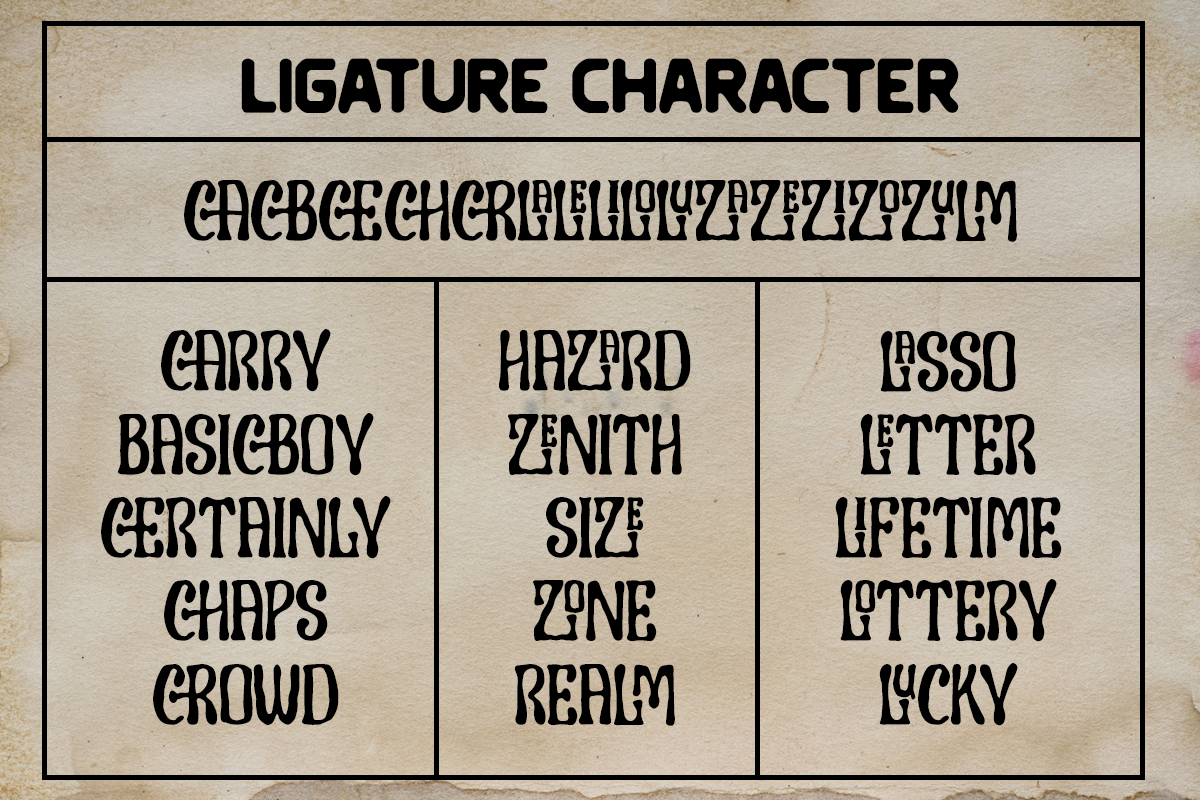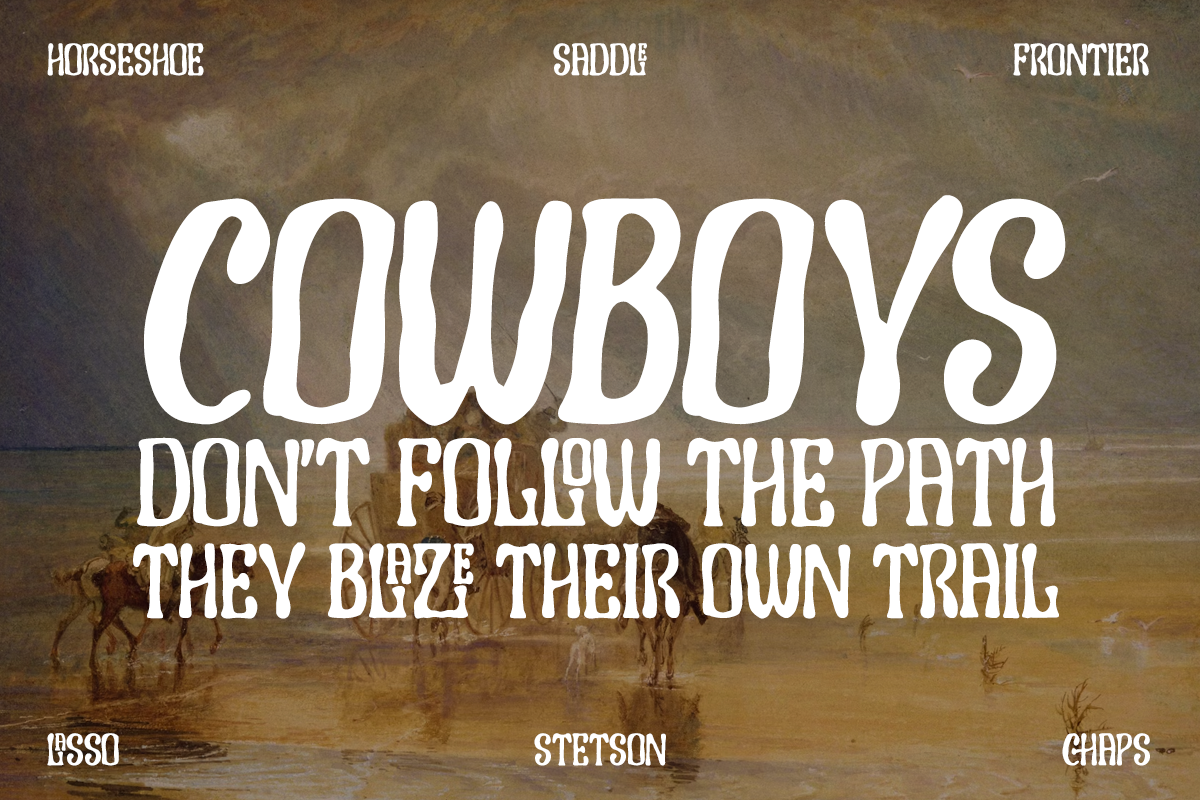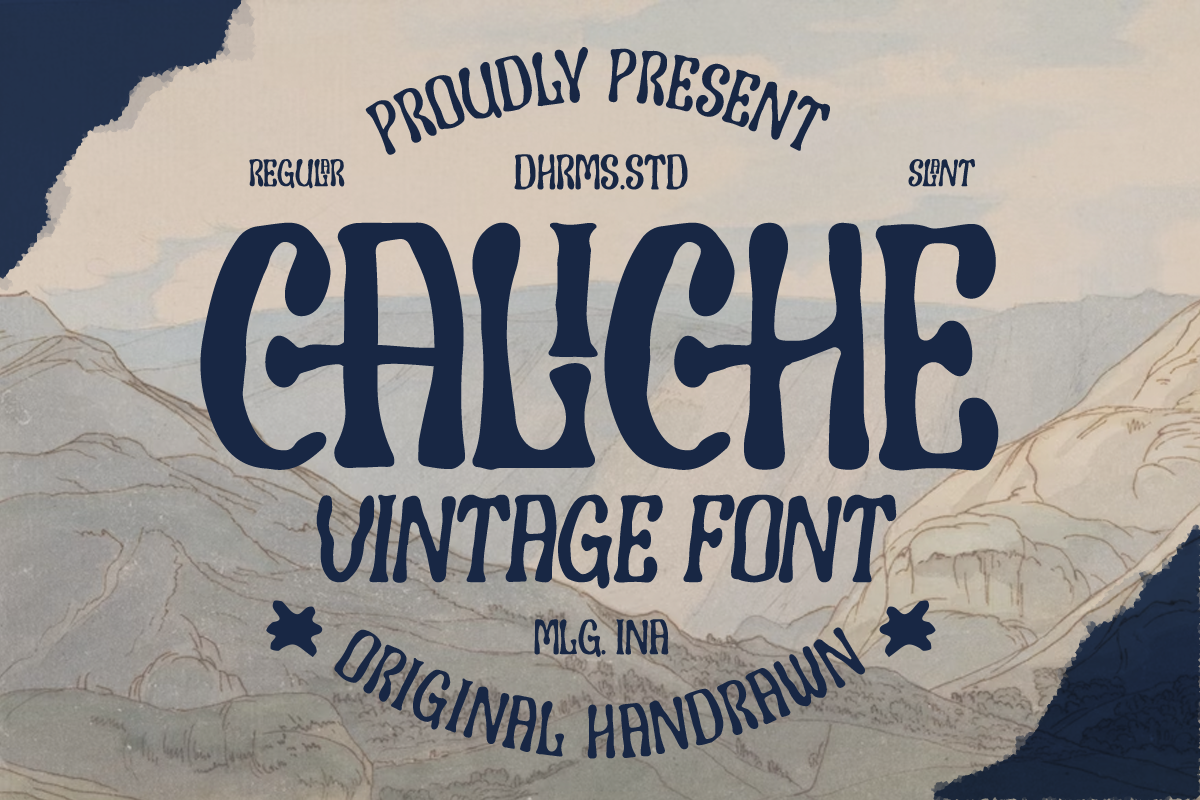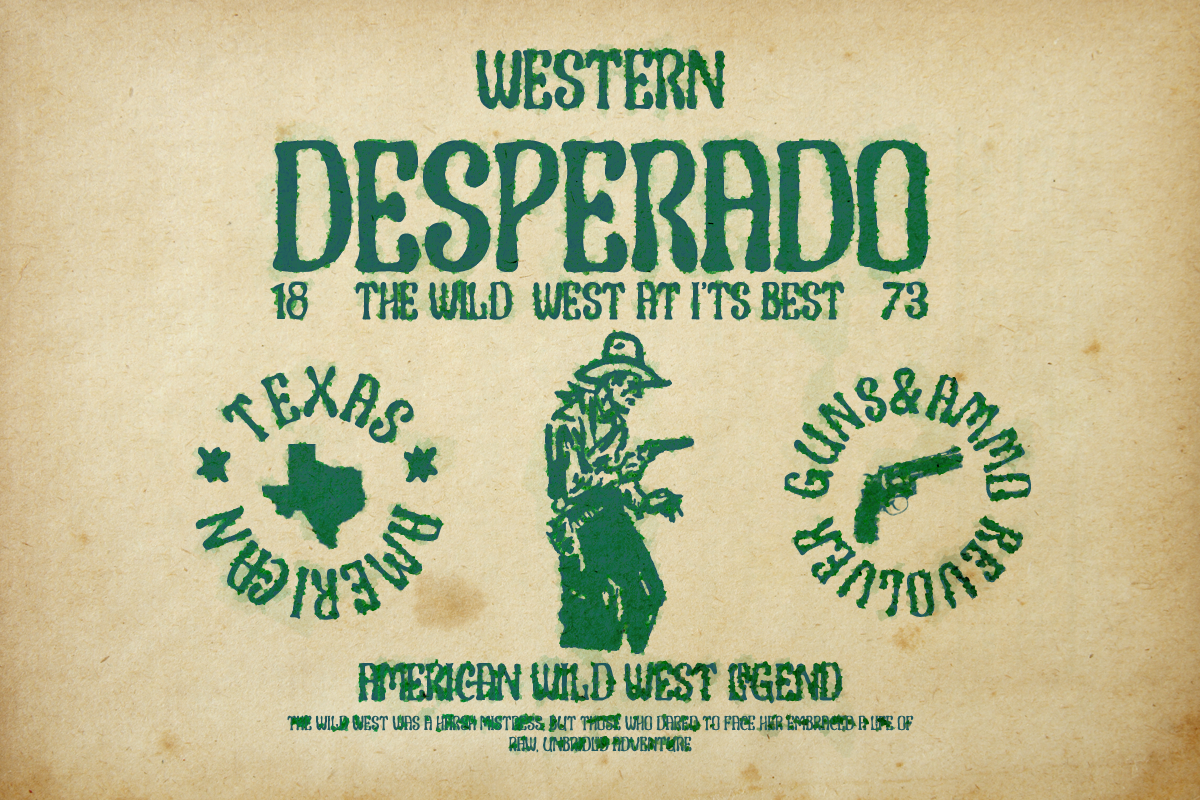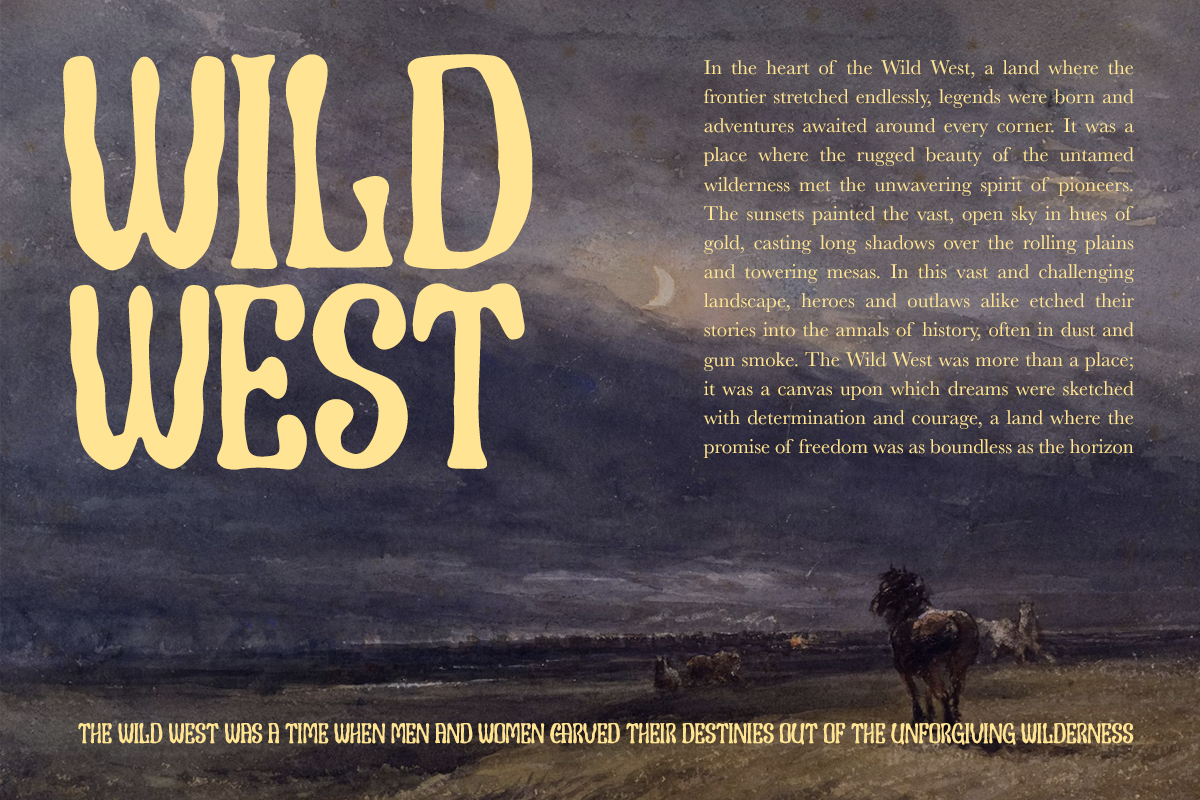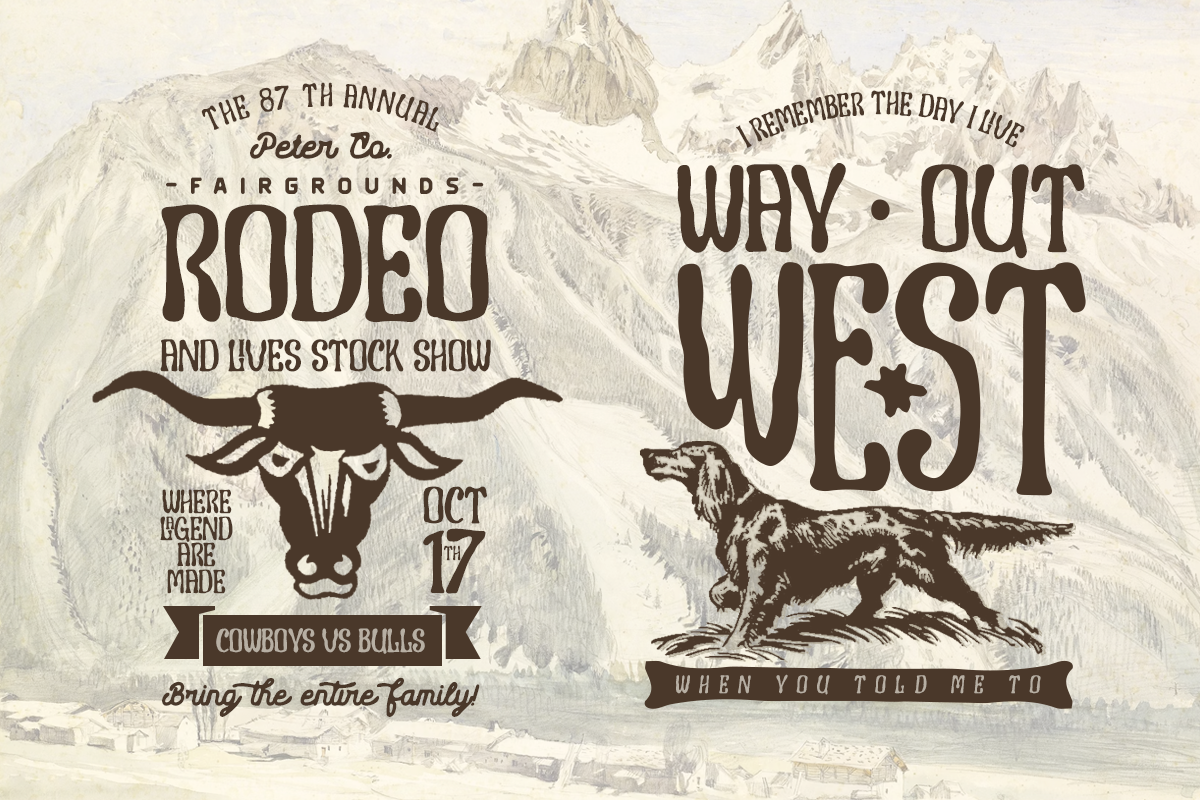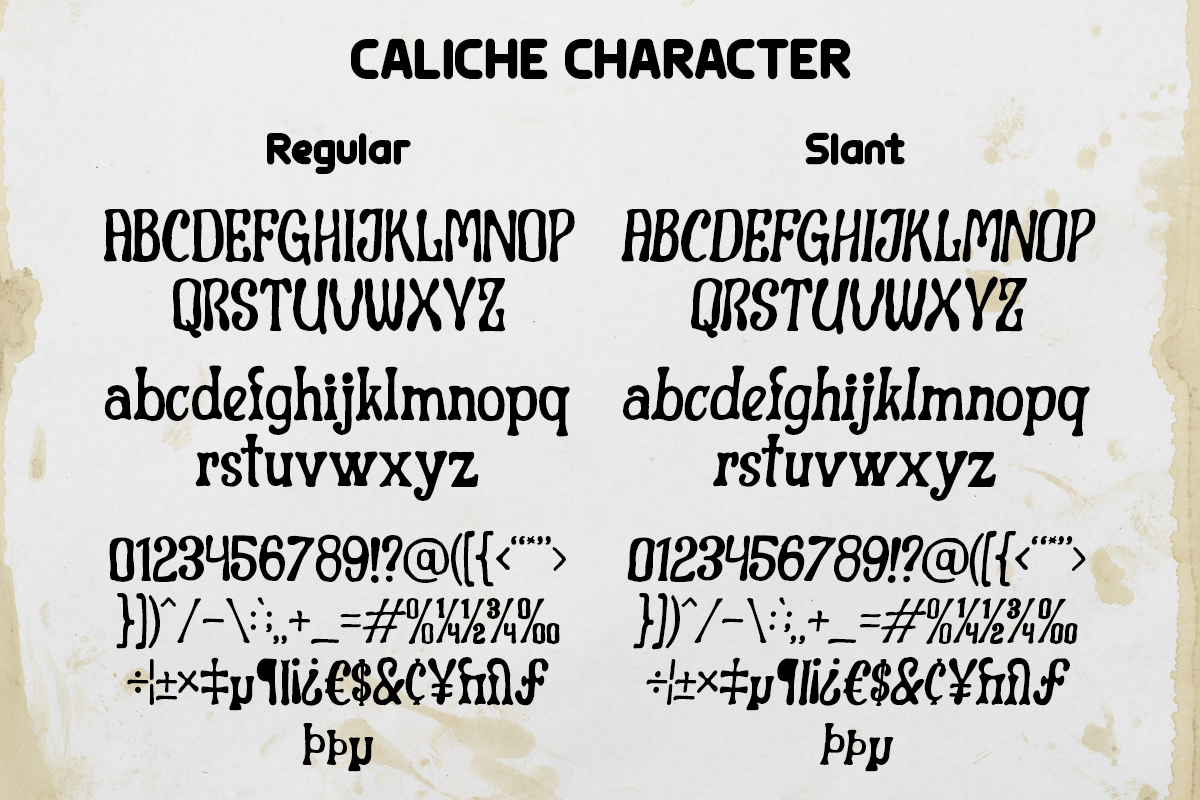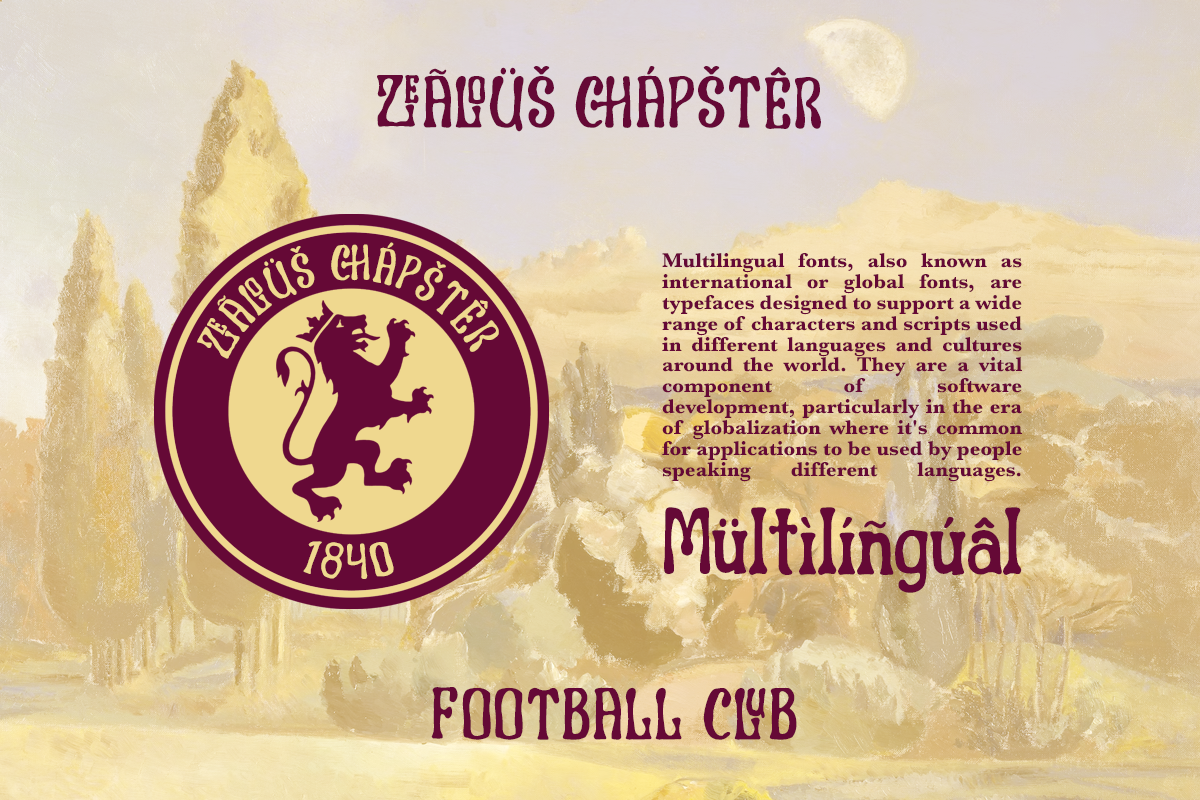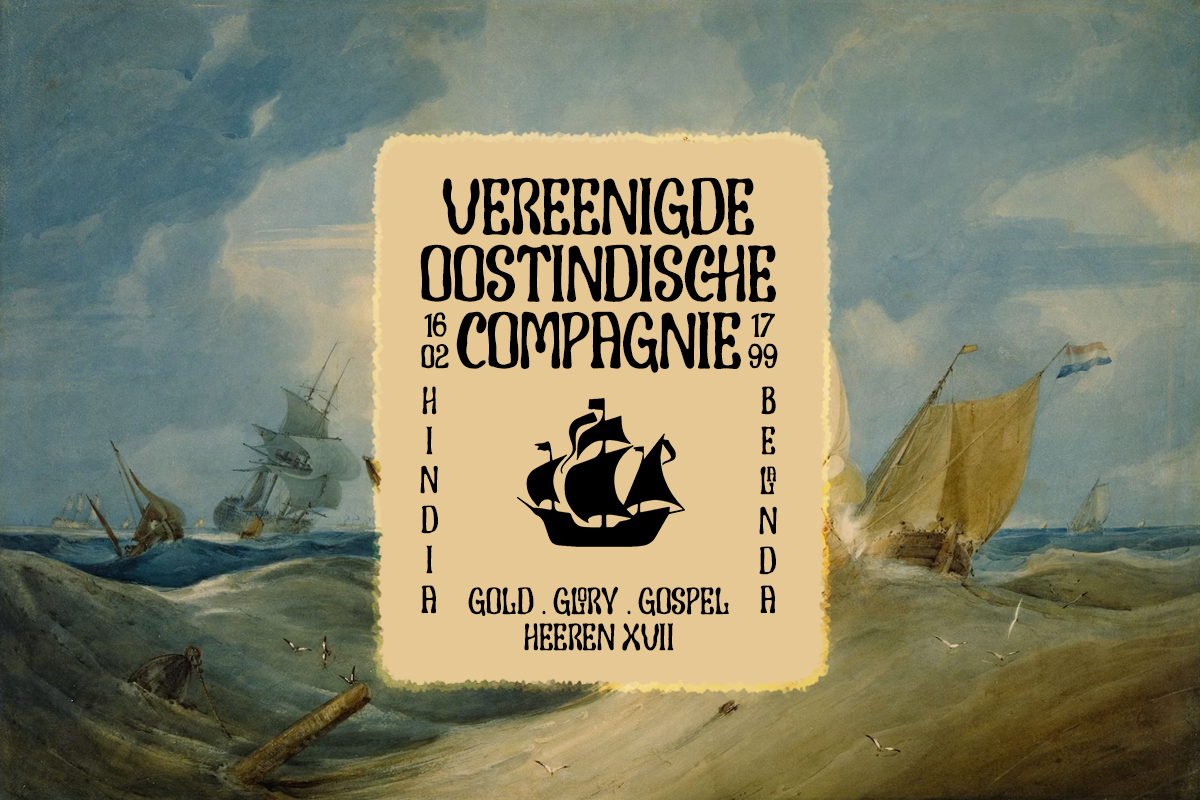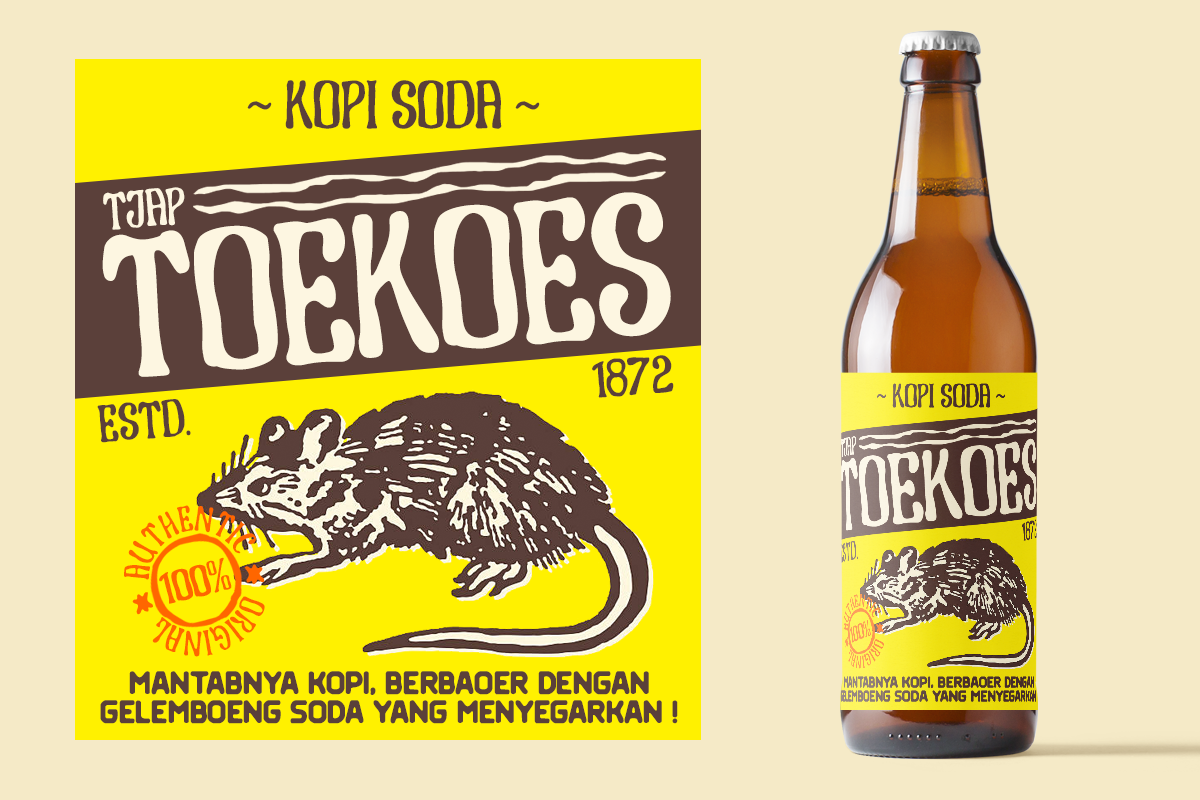
Caliche - Vintage Handdrawn Font
Say hello to CALICHE! The font that's as vintage and handdrawn at the same time!
CALICHE's typeface is inspired by the rustic charm of vintage craftsmanship, infused with the laid-back vibes of a tropical summer. This font brings you not one, but two families to choose from: Regular and Slant, offering versatility for your design projects.
Whether you're aiming for a rugged look, modern vintage aesthetics, or the essence of summer, CALICHE has got you covered. It's the perfect companion for all your graphic design needs, crafted with care to bring that unique touch to your creations
Regular and Slant version
Unique Letterforms